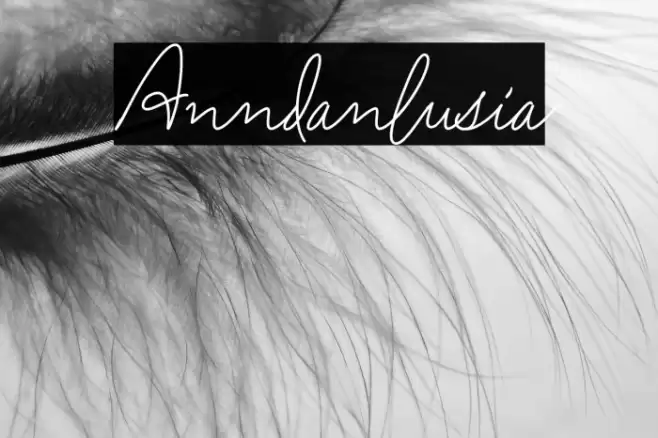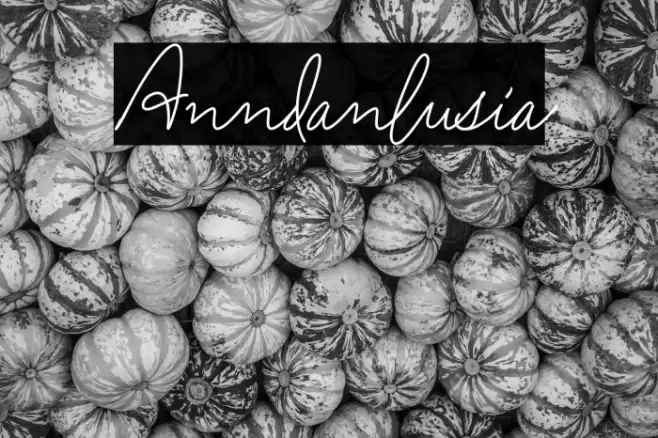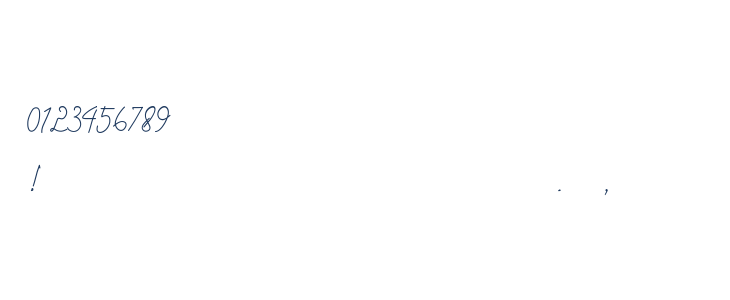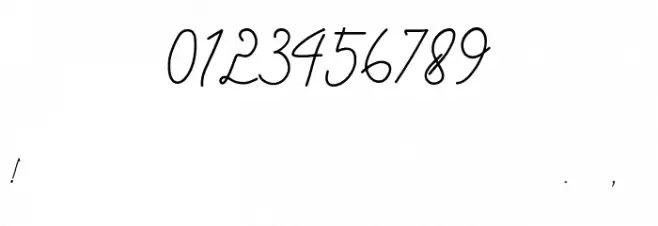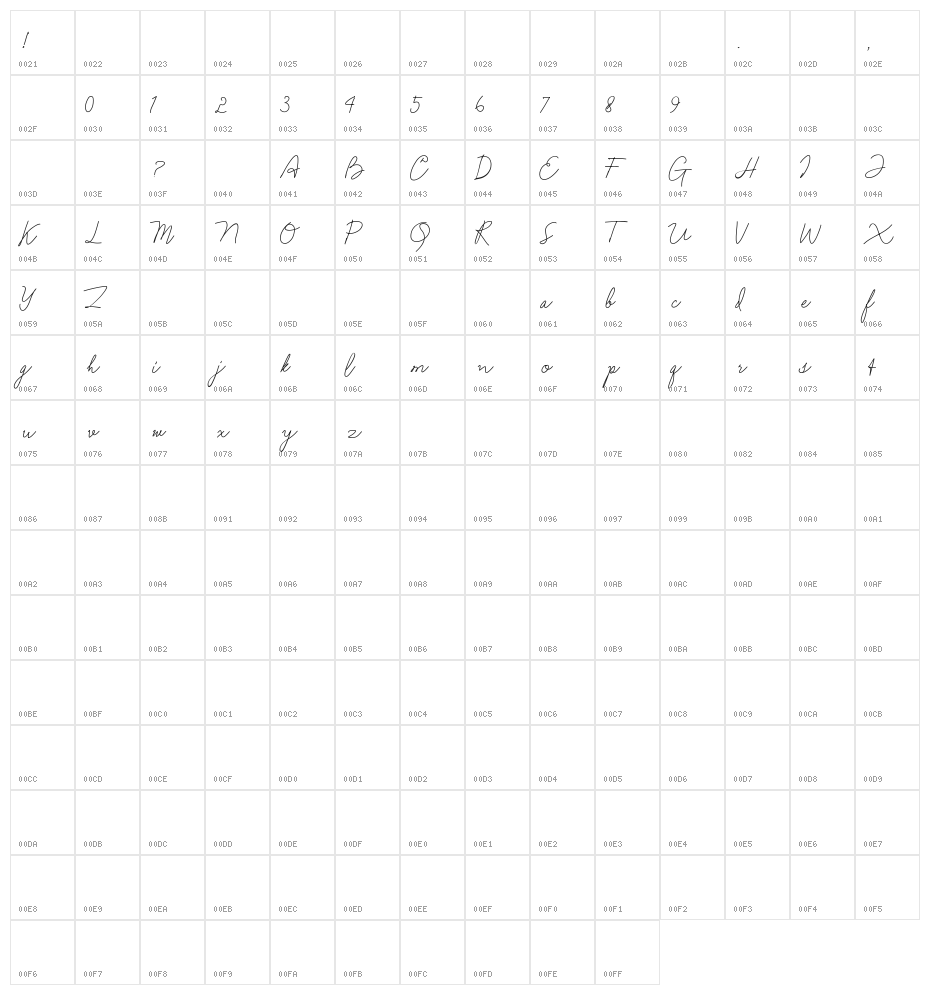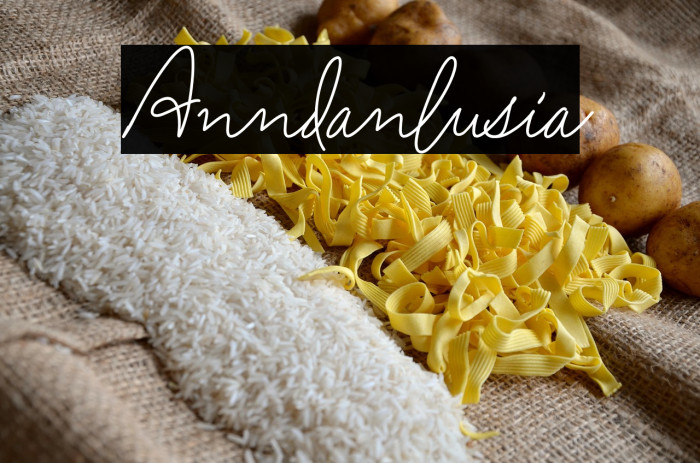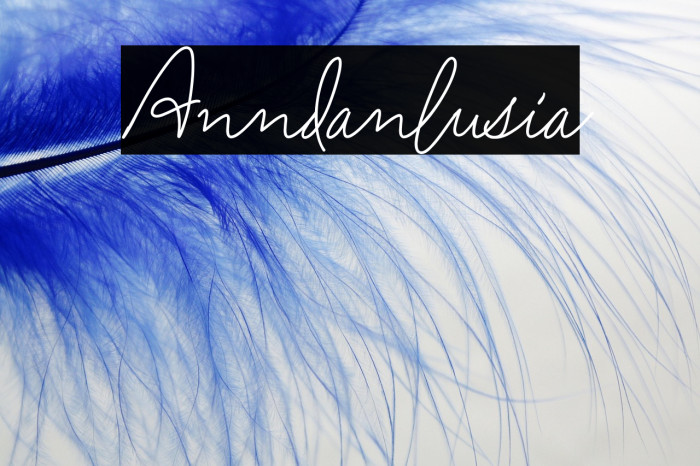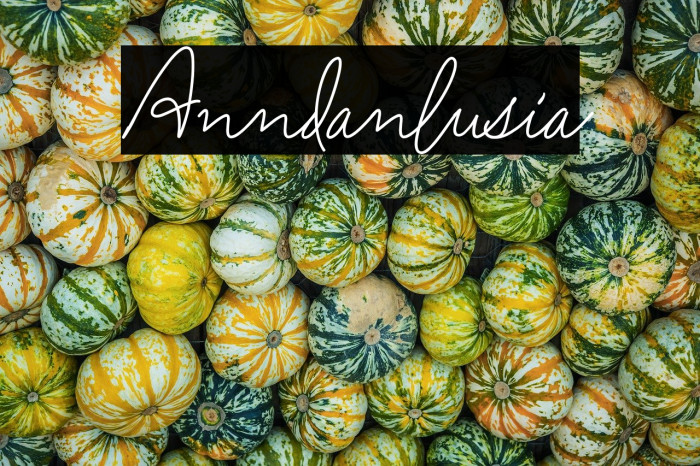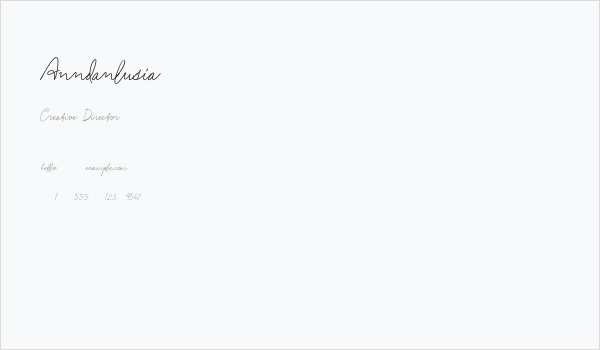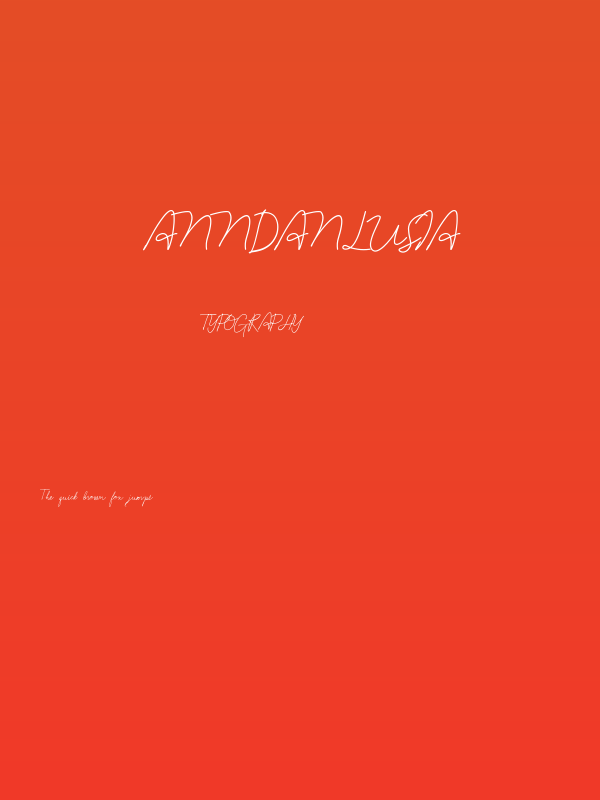
Anndanlusia Font
Anndanlusia Description
This font features a flowing, cursive style with a handwritten appearance. The letters are elegantly connected, giving it a smooth and continuous look. The uppercase letters are slightly more elaborate, with some featuring loops and swirls, while the lowercase letters maintain a consistent, flowing form. The numbers are also designed in a cursive style, maintaining the overall aesthetic of the font. The special characters are integrated seamlessly, matching the fluidity of the alphabet. This font exudes a sense of elegance and sophistication, making it suitable for formal and creative applications.
A cursive, handwritten font with elegant, flowing letters and a sophisticated style from Regular fonts.
- Proposed Projects: Ideal for wedding invitations, greeting cards, personal branding, and elegant logos.
- Overall Style: Elegant
- Use Case: Logos, Invitations, Personal Branding